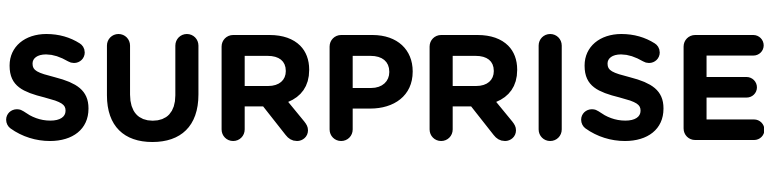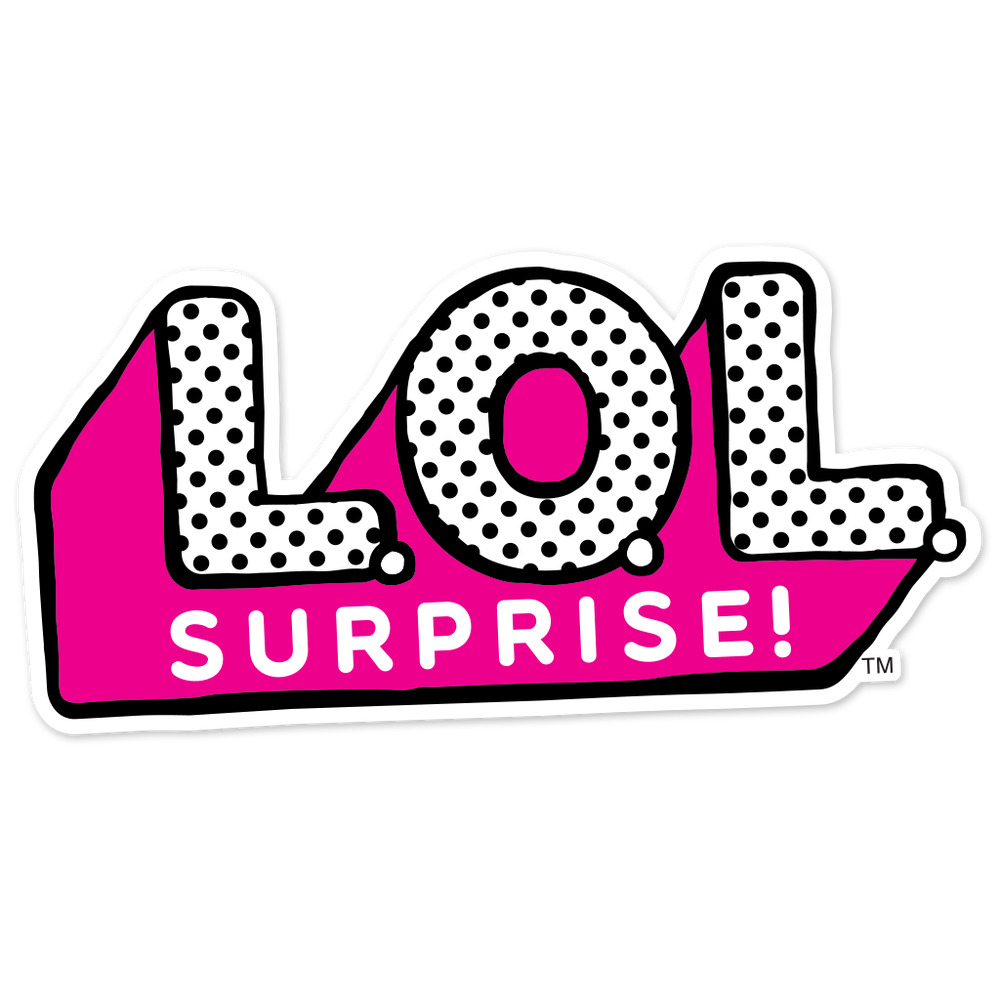
LOL Surprise Font
The font used for the "SURPRISE" part of the LOL Surprise logo resembles Gotham Rounded Bold by Hoefler & Co, while the "LOL" part without polka dots resembles Bold Bold by Intellecta Design. The official website currently uses Insanitype's free font, Insaniburger, for menu texts and headlines. You can download Bold Bold for free from the Fonts Used Section.